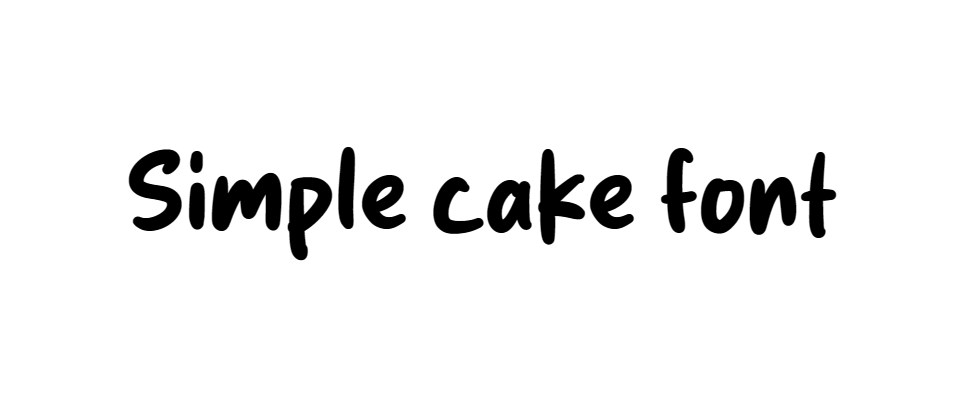
Simple cake font
Simple cake
Simple cake is a handwritten font made by MJType (Muhamad Junaid). The letters have the small wobbles and personality of real handwriting, so your text feels warm instead of printed. It's a free download, and you can try it with your own text in the preview above first.
- Designer: MJType (Muhamad Junaid)
What You Can Type With Simple cake
Simple cake covers the full alphabet in upper and lowercase, plus all ten numbers, so you can set names, dates and prices without switching fonts. Everyday marks like &, !, ? and @ are there too. Thanks to its accented letters, it also works for Spanish, French, German, Portuguese and Italian, not just English.
Where Simple cake Works Best
Designers usually reach for fonts like Simple cake when they're making greeting cards, journal pages and friendly social posts. Set it a bit larger than you would a normal text font. Handwriting styles lose their charm once they get too small to read comfortably.
Does Simple cake support accented letters?
Yes. Simple cake includes the accented letters needed for Spanish, French, German, Portuguese and Italian, so it works for more than just English.